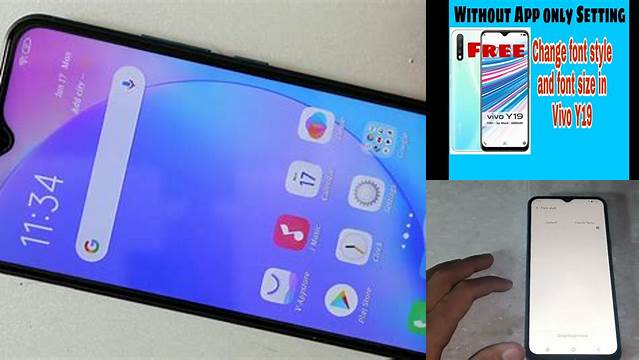
Change Vivo Y17 Font Style Free: A How-To Guide
Hey guys! Are you looking to spice up your Vivo Y17 and give it a fresh new look? One of the easiest ways to do that is by changing the font style. It's a simple yet effective way to personalize your phone and make it truly yours. In this comprehensive guide, we'll walk you through everything you need to know about changing the font style on your Vivo Y17, completely free of charge. We'll cover the built-in options, explore third-party apps, and even delve into some cool tips and tricks to make your font customization journey a breeze. So, let's dive in and transform your phone's appearance!
Understanding Font Customization on Vivo Y17
Before we jump into the how-to, let's understand why font customization is such a big deal. Think of your phone's font as its personality. A sleek, modern font can give your phone a sophisticated vibe, while a playful, handwritten font can add a touch of fun. The default font might be okay, but it doesn't reflect your style, does it? Customizing your font allows you to express yourself and make your phone feel more personal. It's like choosing the perfect outfit for your phone!
Vivo, like many Android manufacturers, understands the importance of personalization. That's why they've included built-in options for changing the font style on your Y17. These options are usually found within the phone's settings, making it a convenient and safe way to alter the look of your device. You don't need to be a tech whiz to do this; it's designed to be user-friendly. We'll explore these built-in options in detail in the next section. But remember, while built-in options are great, they might be limited in variety. That's where third-party apps come in, offering a wider range of fonts to choose from. We'll also discuss the pros and cons of using third-party apps, so you can make an informed decision.
Why is this important? Because changing fonts isn't just about aesthetics. It can also improve readability. If you find the default font difficult to read, you can switch to a font that's clearer and more comfortable for your eyes. This is especially useful for those who spend a lot of time reading on their phones. Plus, a fresh font can make using your phone feel new and exciting again. It's a small change that can make a big difference in your overall user experience. So, whether you're looking to express your personality, improve readability, or simply refresh your phone's look, font customization is a fantastic option. Let’s get started on how you can achieve this on your Vivo Y17!
Built-in Font Style Options on Vivo Y17
Okay, let’s get practical! The easiest and safest way to change the font style on your Vivo Y17 is by using the built-in options. Vivo's Funtouch OS usually offers a few pre-installed fonts that you can choose from. These fonts are designed to work seamlessly with your phone's interface, ensuring a smooth and stable experience. No need to worry about compatibility issues or system glitches here!
What kind of fonts can you expect to find? Well, it varies depending on the Funtouch OS version, but you'll typically see a mix of classic and modern fonts. You might find a clean, sans-serif font that's perfect for a minimalist look, or a more elegant, serif font that adds a touch of sophistication. Vivo sometimes includes a custom font designed specifically for their phones, which can be a nice option if you want something unique. Remember, the key here is simplicity and safety. Using built-in options minimizes the risk of encountering problems with your phone's software. It's the recommended approach for beginners or anyone who prefers a hassle-free experience.
However, it's also important to acknowledge the limitations. The number of built-in fonts is usually quite limited. You might only have a handful of choices, and they might not perfectly match your personal style. This is where third-party apps come into the picture, offering a much wider variety of fonts. But before we explore those, let's make sure you're comfortable with the basics. Try out the built-in fonts on your Vivo Y17. Experiment with different styles and see what works best for you. This will give you a good foundation for further customization later on. In the next section, we’ll delve into using third-party apps to expand your font choices even further!
Using Third-Party Apps for More Font Styles
Alright, guys, let's talk about taking your font game to the next level! If the built-in fonts on your Vivo Y17 aren't quite cutting it for you, then third-party apps are your next best bet. These apps, available on the Google Play Store, offer a vast library of fonts to choose from, ranging from quirky and playful to elegant and professional. You can find fonts that mimic handwriting, fonts inspired by classic typefaces, and everything in between. It's like having a whole world of fonts at your fingertips!
But before you rush off to download the first font app you see, it's crucial to be aware of the potential risks. Not all apps are created equal, and some can be unreliable or even harmful. Downloading apps from unknown sources can expose your phone to malware or compromise your personal data. That's why it's essential to stick to reputable apps from trusted developers. Look for apps with high ratings, positive reviews, and a large number of downloads. This is a good indicator of their safety and reliability.
We also shared some valuable tips and tricks to help you find the perfect font, manage your font library effectively, and troubleshoot any issues you might encounter. From considering your aesthetic preferences to adjusting font sizes and restarting your phone when things go wrong, these tips will help you navigate the world of font customization with confidence. So, what are you waiting for? It's time to unleash your creativity and personalize your Vivo Y17 with style! Experiment with different fonts, find the ones that resonate with you, and make your phone a true reflection of your unique personality. Happy font hunting, guys!